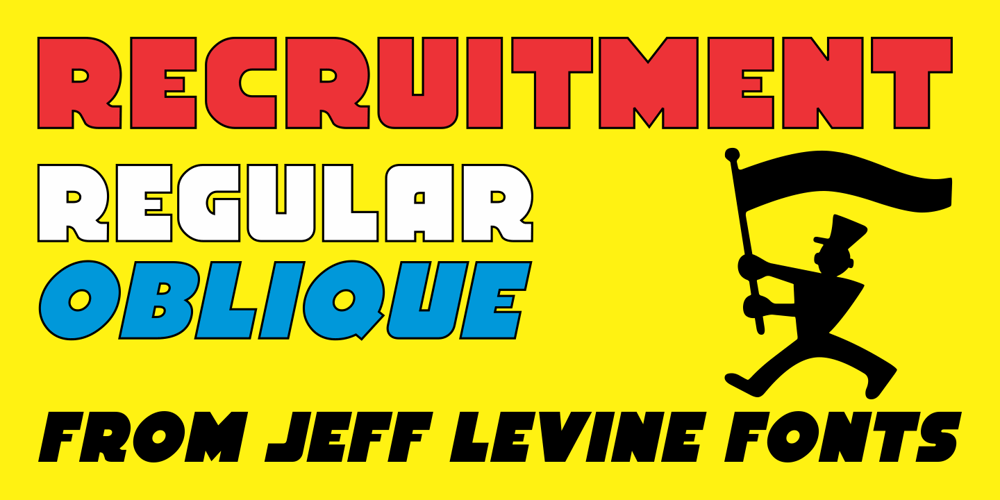
Recruitment JNL Font Family was designed by published by Jeff Levine. Recruitment JNL contains 2 styles and family package options. A 1916 recruitment poster from World War I seeking men to join the Army’s Signal Corps provided the lettering inspiration for Recruitment JNL, which is available in both regular and oblique versions.